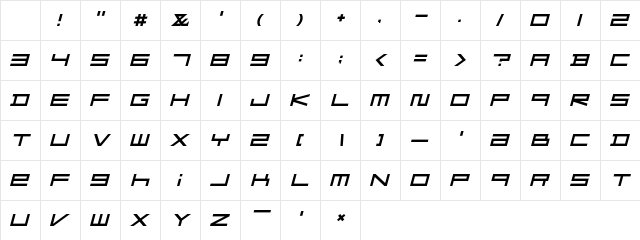
Complete F-Zero GX Menu Font Obl Italic glyph index. Displaying only characters natively supported by F-Zero GX Menu Font Obl Italic font.
F-Zero GX Menu Font Obl is a composed and adaptable typeface that performs quietly and consistently across a wide range of design contexts. The slanted form adds forward momentum and visual energy.